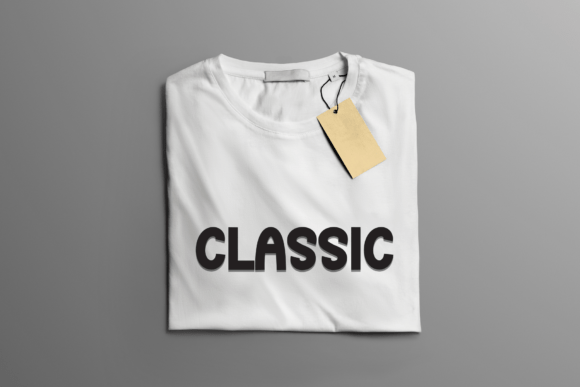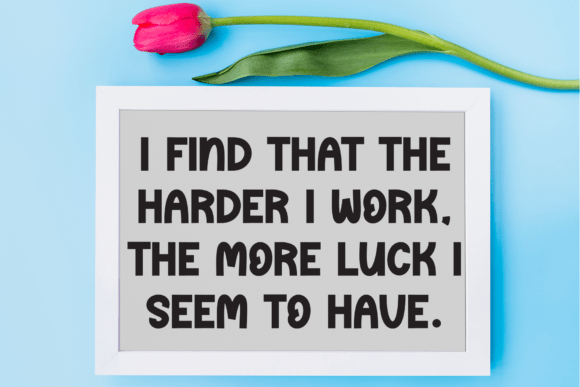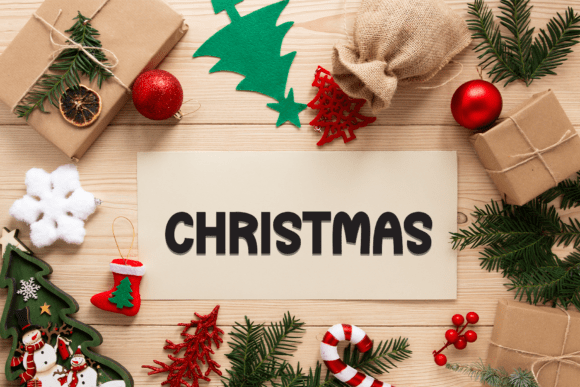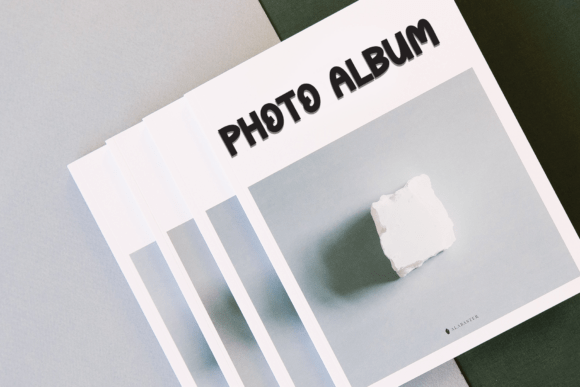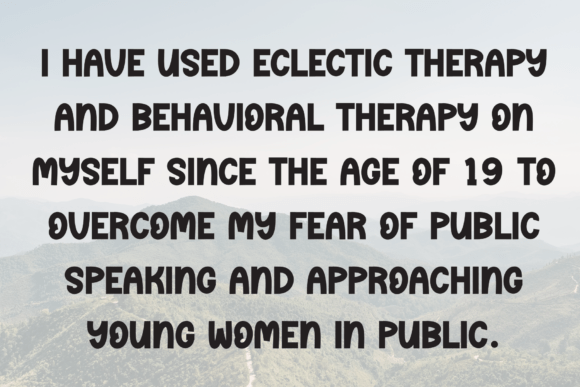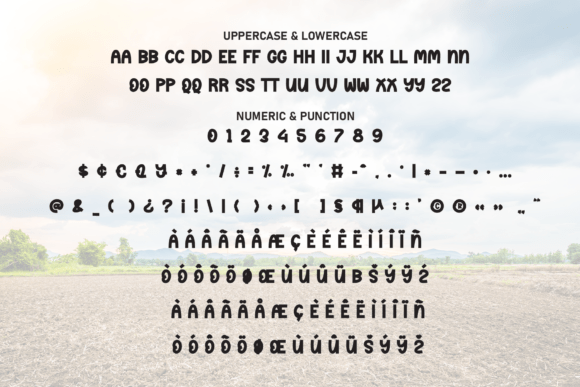
The Perfect Font for Your Next Design Project: Friday Ground
I still remember the last time I was working on a branding project, and I just couldn’t find the right font. My client wanted something modern, yet friendly; something that would make their brand stand out, but still convey a sense of approachability. I scoured the internet, tried out dozens of fonts, but nothing seemed quite right. That was until I stumbled upon Friday Ground. This casual and neat display font has been a game-changer for me, and I’m excited to share it with you.
A Personal Review of Friday Ground
- ✨ Clean lines and balanced letterforms: Friday Ground has a polished finish that makes it perfect for branding, headlines, packaging, and digital content.
- ✅ Subtle rounded edges: These add a touch of warmth and friendliness to the font, making it ideal for designs that need a more approachable vibe.
- 💡 Versatile style: Whether you’re working on a modern design or a more traditional one, Friday Ground adapts seamlessly.
While Friday Ground is an excellent font, there are a few things to keep in mind:
- ⚠️ Limited use for body text: Due to its display nature, Friday Ground might not be the best choice for longer texts. It’s perfect for headlines and titles, but for body text, you might want to pair it with a more readable font.
- 🤔 Not ideal for very small sizes: While the font is clear and readable, it might lose some of its charm when used at very small sizes. It’s best used at larger sizes where its details can shine.
The Story Behind Friday Ground
Friday Ground was designed with the intention of creating a font that embodies the spirit of modern handwritten typography but with a polished and professional finish. The designer aimed to create a font that is not only clean and neat but also warm and inviting. The result is a font that feels both contemporary and approachable.
Q: What type of projects is Friday Ground best suited for?
A: Friday Ground is ideal for branding, headlines, packaging, and digital content where a modern yet friendly vibe is desired.
Q: Can I use Friday Ground for body text?
A: While Friday Ground can be used for short paragraphs, it’s primarily designed as a display font. For longer texts, it’s best to pair it with a more readable font.
Q: Is Friday Ground suitable for print and digital use?
A: Yes, Friday Ground is versatile and works well for both print and digital projects.
Q: Does Friday Ground support OpenType features?
A: Yes, Friday Ground supports OpenType features, allowing for a range of stylistic alternates and glyphs to enhance your designs.